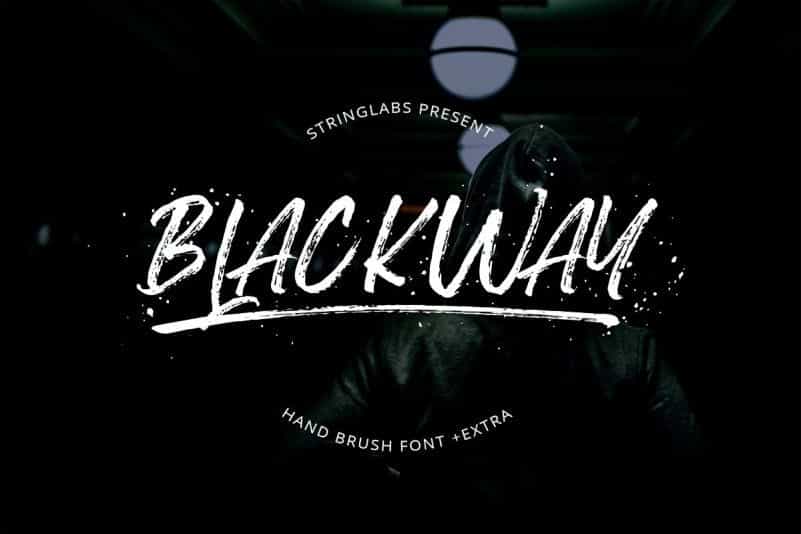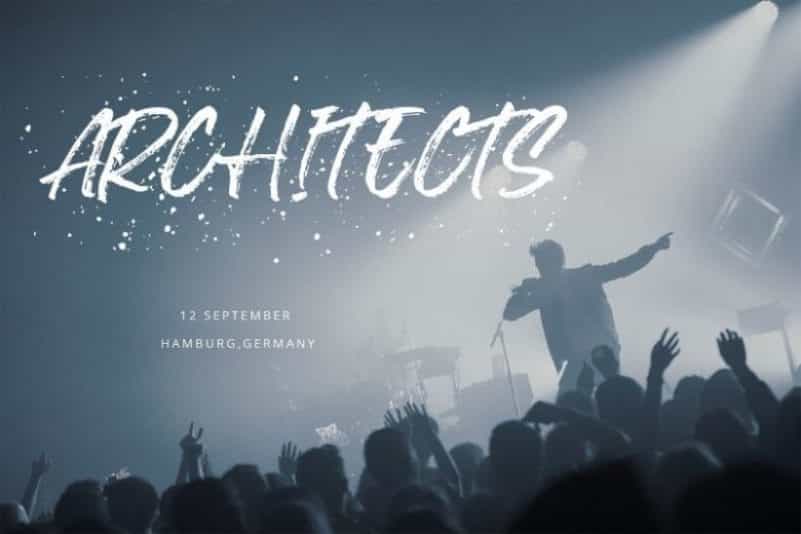
Blackway Font is your typical brush font, it’s rough, rugged and quite rebellious! Designed with free-hand strokes and dry brush effects, Blackway promises to give you a bold, confident, and happy-go-lucky statement – perfect for logos, handwritten phrases, product labels, apparel & accessories, social media, and greeting cards.